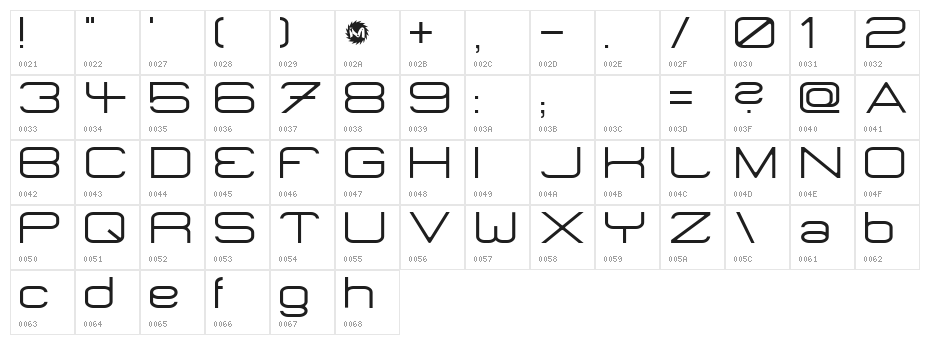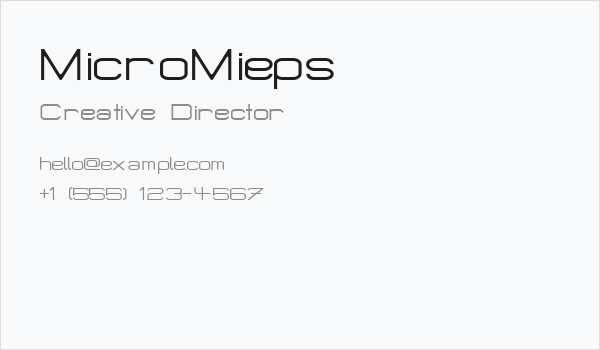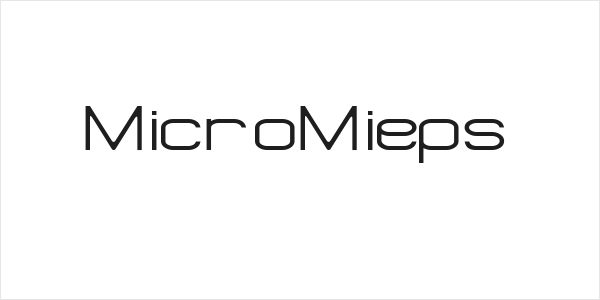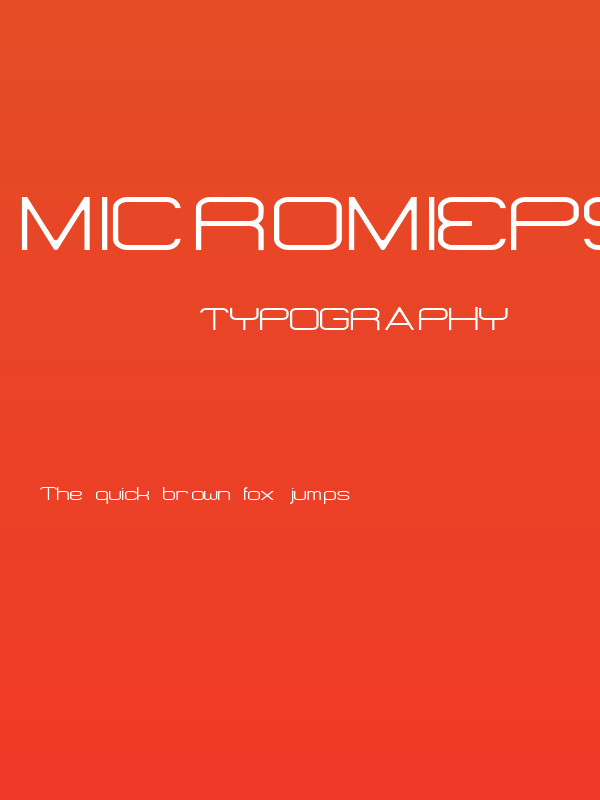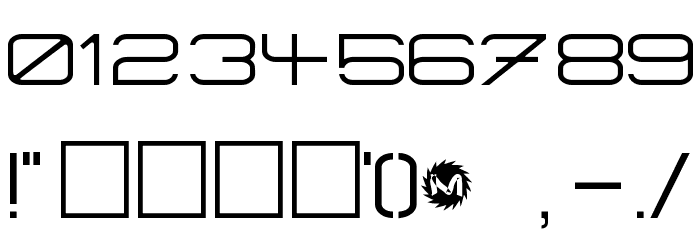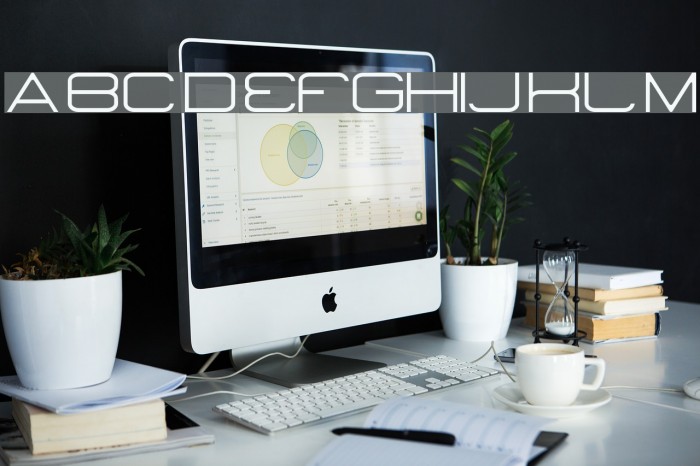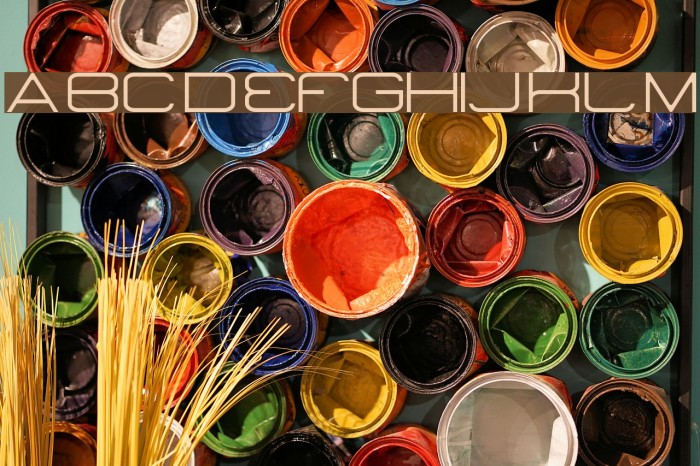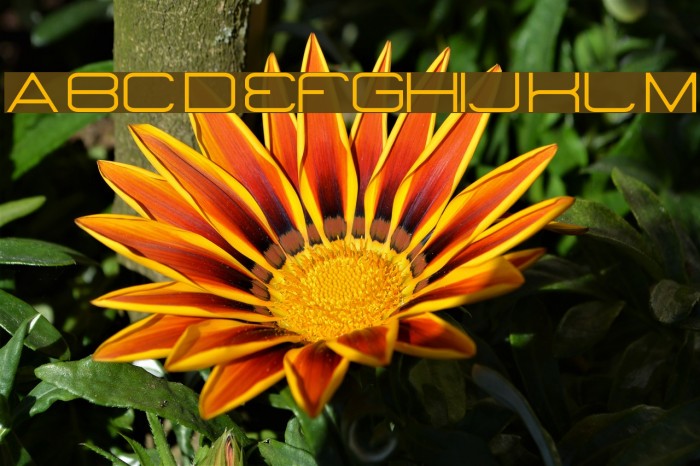
MicroMieps Font
MicroMieps Description
This font features a modern, geometric design with clean lines and a futuristic aesthetic. The uppercase letters are uniform in height, with a slight angularity that gives them a sleek, technical appearance. The lowercase letters maintain a consistent style, with rounded edges that soften the overall look. Numbers are designed with the same geometric precision, ensuring readability and style. Special characters are included, enhancing the font's versatility. The font's design is both functional and stylish, making it suitable for a variety of digital and print applications.
| Use Case | Headlines, Logos, Digital interfaces |
| Proposed Projects | Ideal for tech branding, digital interfaces, and modern advertising campaigns. |